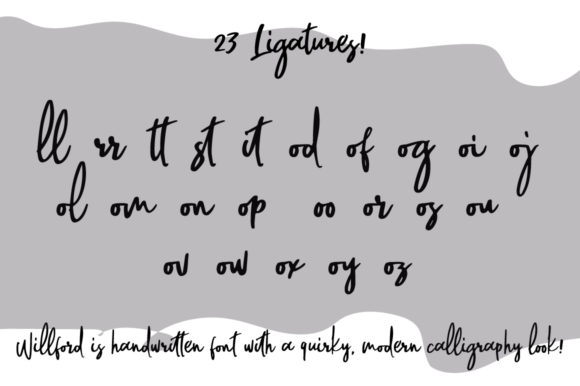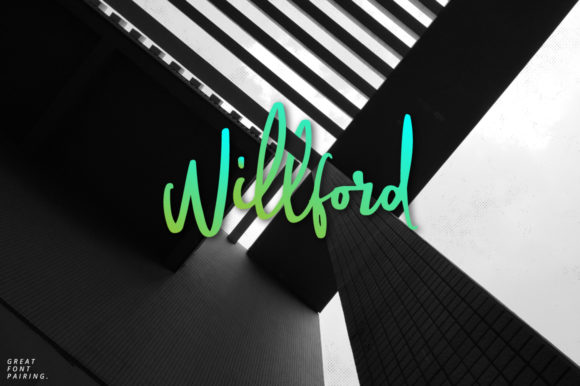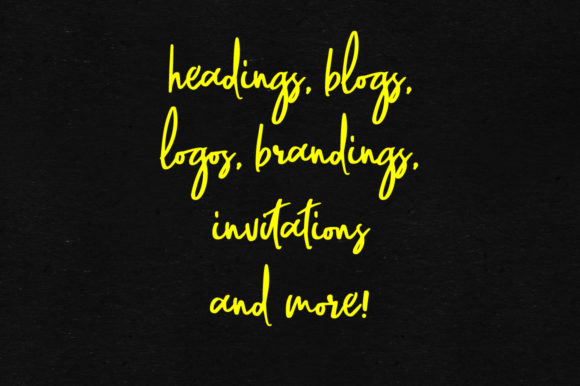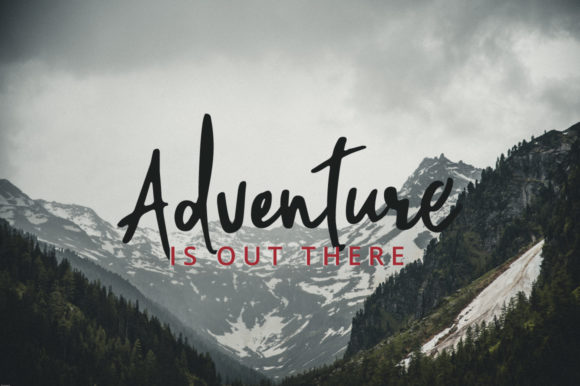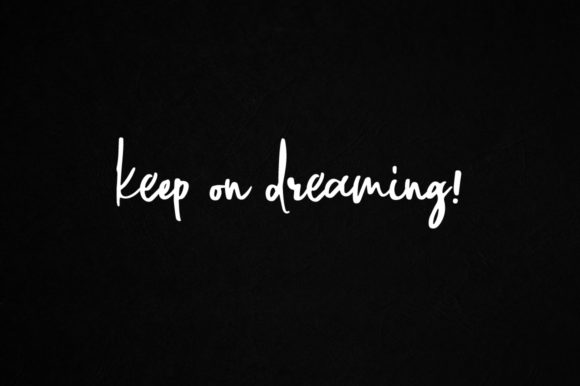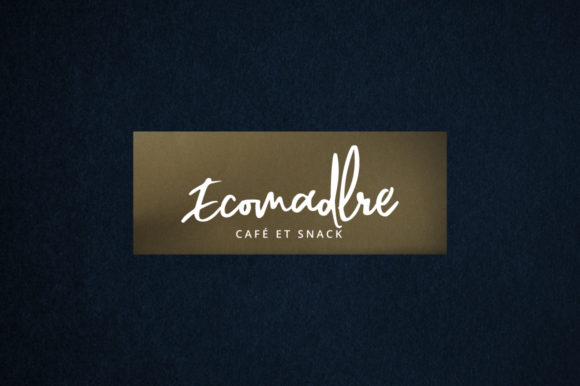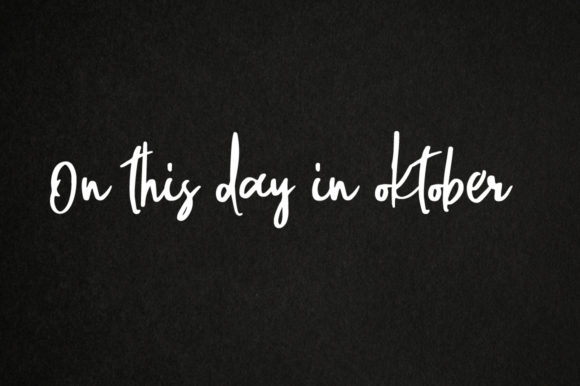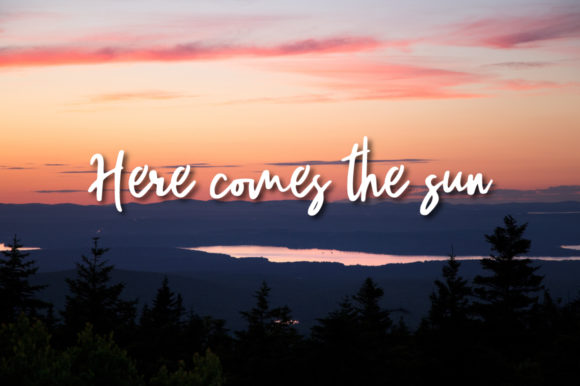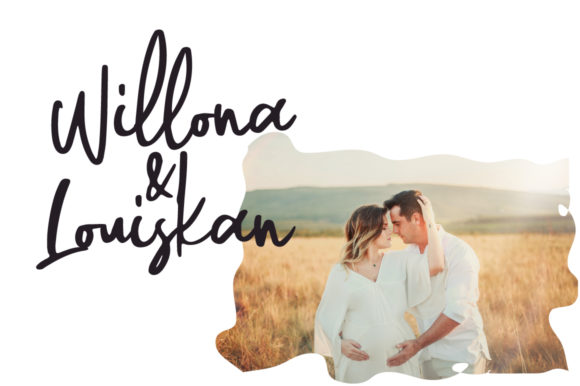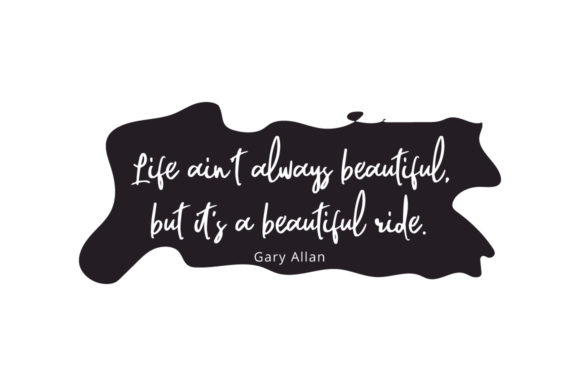
HomeScript FontsWillford Font Script Fonts Willford Font FacebookXPinterestWhatsApp Willford Font Poster 2 Willford Font Poster 3 Willford Font Poster 4 Willford Font Poster 5 Willford Font Poster 6 Willford Font Poster 7 Willford Font Poster 8 Willford Font Poster 9 Willford Font Poster 10 Willford Font Poster 11 Willford Font Poster 12 About Willford Font Willford is a bold and powerful handwritten font with a contemporary feel. Get inspired by its unique feel! DOWNLOAD NOW People also explored Shopee Font Fany Smash Font Baligle Font Christmas Snowfly Font Dancing in the Dark Font Fortification Font Coming Soon Font Bodoni Classic Text Polaris Star Font 334 0 TagsWillford Font Previous articleMasculin FontNext articleHarilly Aleya Font LEAVE A REPLY Cancel reply Comment: Please enter your comment! Name:* Please enter your name here Email:* You have entered an incorrect email address! Please enter your email address here Website: Save my name, email, and website in this browser for the next time I comment. Personal Use Free Zroest Personal Use Free Read more about this font Starter Personal Use Free Read more about this font Advantage Personal Use Free Read more about this font Huntry Personal Use Free Read more about this font BLOG Best Fonts for T-Shirt Design – Top 2025 Picks In 2025, t-shirt design has become more than just fashion—it's a form of self-expression. Whether you're... Modern Sans-Serif Fonts That Brands Love in 2025 Exploring Font Trends The 10 Best Handwriting Fonts to Add Personality to Your Designs